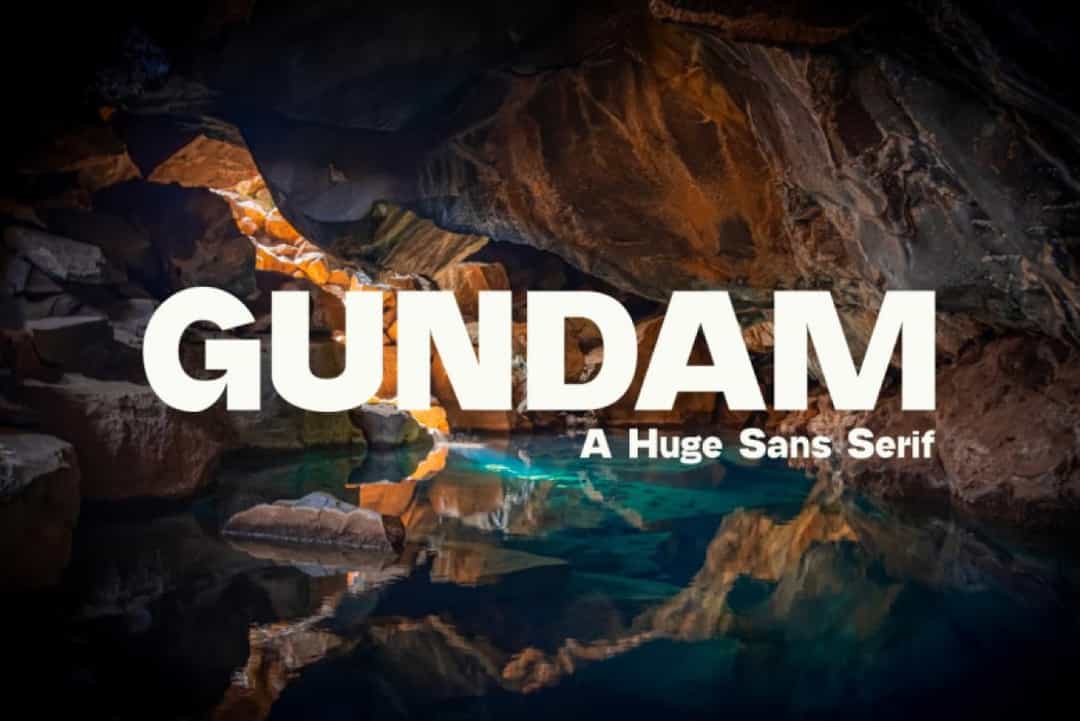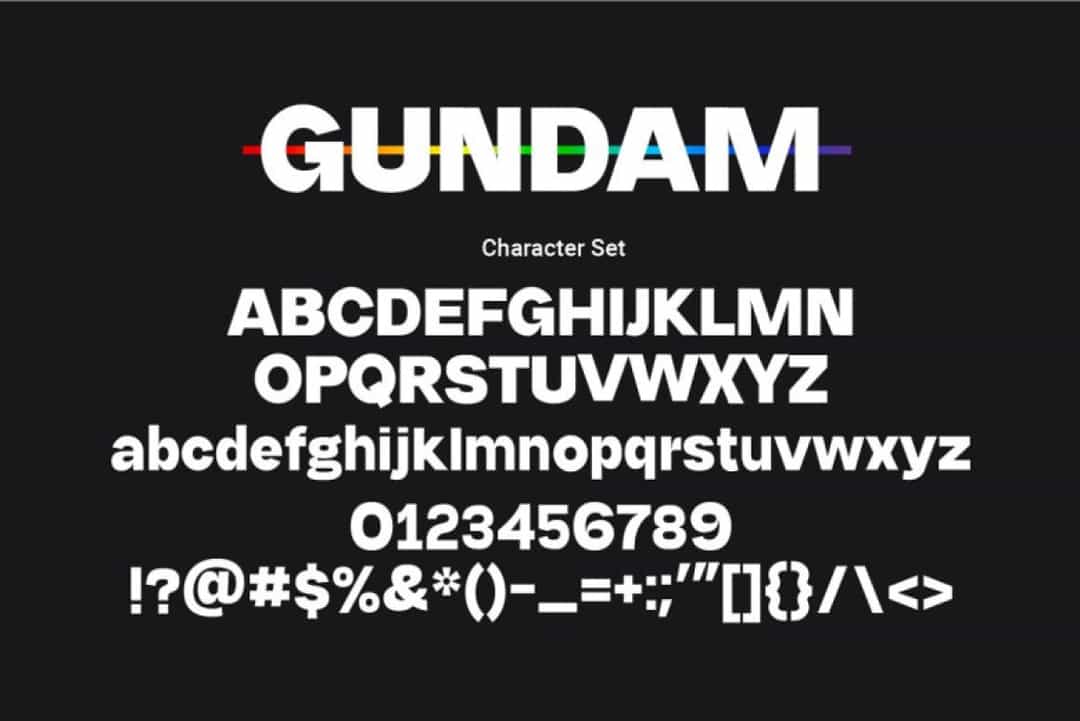
Gundam, our massive bowl filled with, exudes strength as well as character. I would suggest this adds even further appeal – and indeed it does! Titles and headlines written with this font can easily be read aloud; making it ideal for branding, packaging, invitations, books or anything else you wish to use casually without appearing too childish.